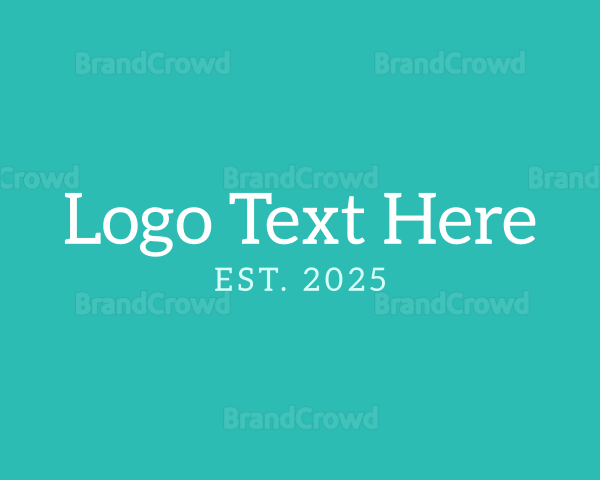
Fresh Serif Font Logo
Introducing our Fresh Serif Font logo, a versatile design that captures the essence of multiple industries and occasions. With its elegant and timeless serif typography, this logo is perfect for fashion brands, small businesses, cafes, and beach bars alike. Whether you're planning a beach wedding, hosting a music festival, or throwing a birthday party, this logo will add a touch of sophistication to your event or brand. Its generic yet stylish appeal makes it suitable for a wide range of purposes, from personal use to promoting a band or DJ. Embrace the summer vibes and aloha spirit with our Fresh Serif Font logo, and let it become the face of your brand or event.